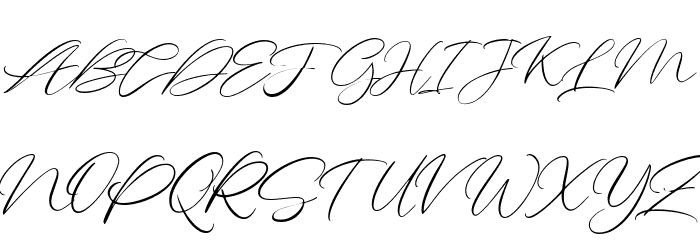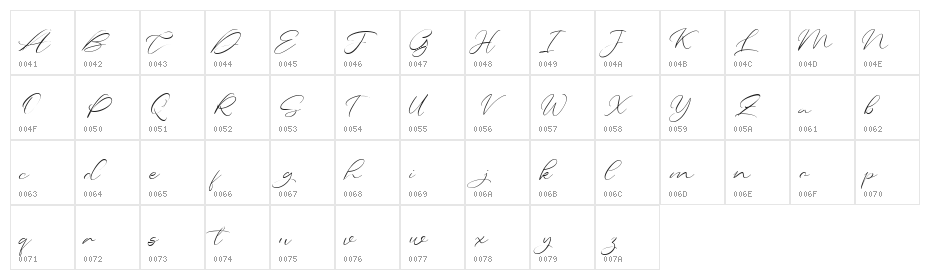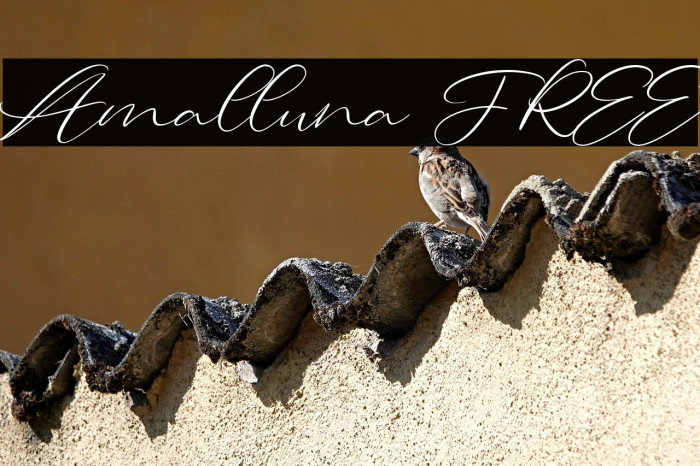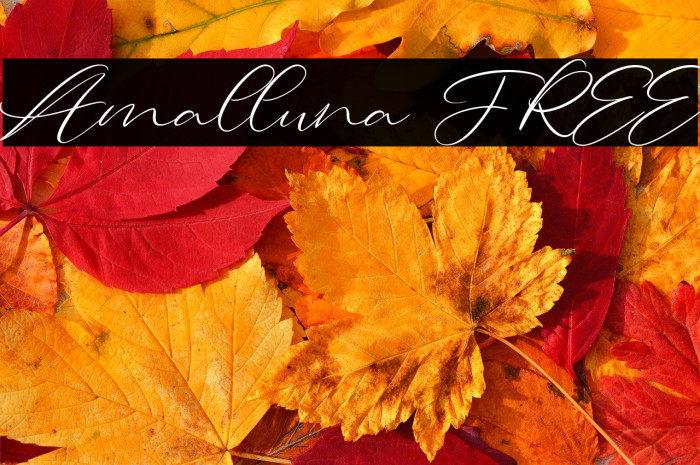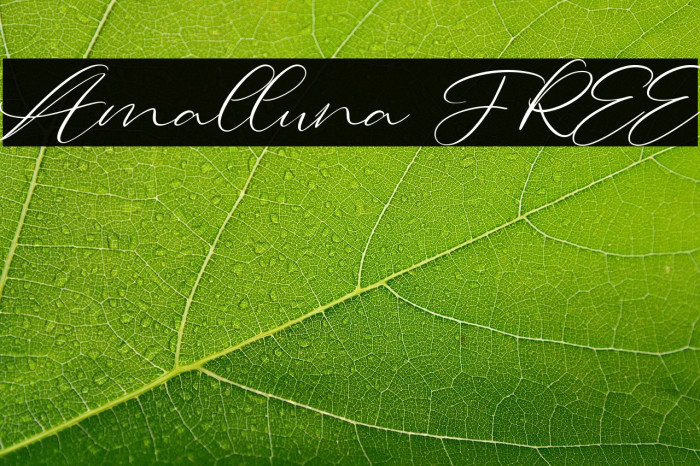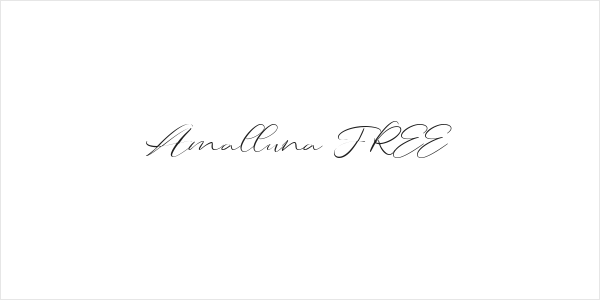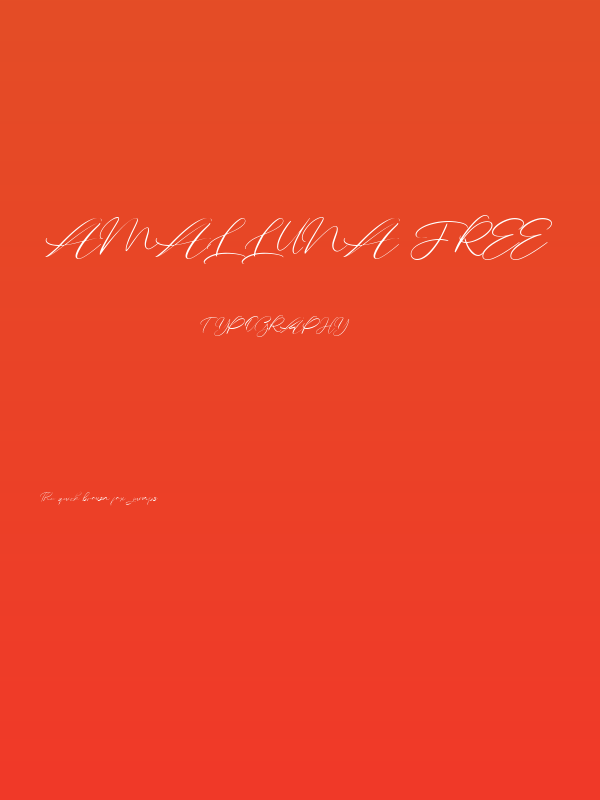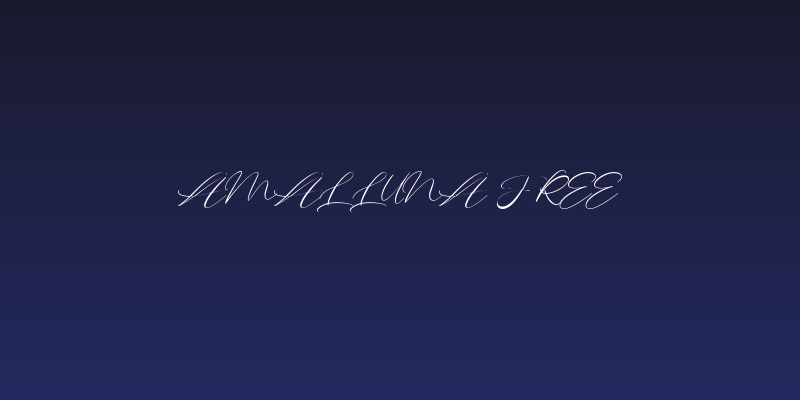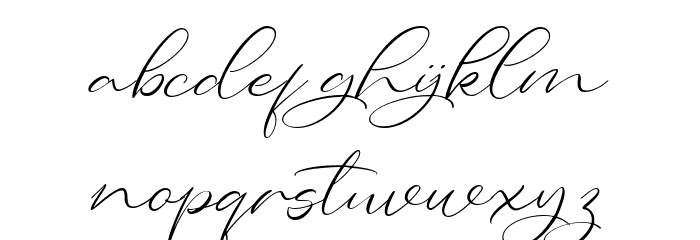
Amalluna FREE Font
Amalluna FREE Description
This elegant script font features flowing, interconnected letters with a graceful and sophisticated appearance. The strokes are smooth and fluid, creating a sense of movement and elegance. The uppercase letters are ornate and decorative, while the lowercase letters maintain a consistent style with delicate loops and curves. The font's overall aesthetic is refined and stylish, making it suitable for formal invitations, branding, and other projects that require a touch of class. The thin lines and high contrast between thick and thin strokes add to its delicate and luxurious feel.
| Use Case | Invitations, Branding, Packaging |
| Proposed Projects | Ideal for wedding invitations, elegant branding, luxury product packaging, and formal event materials. |